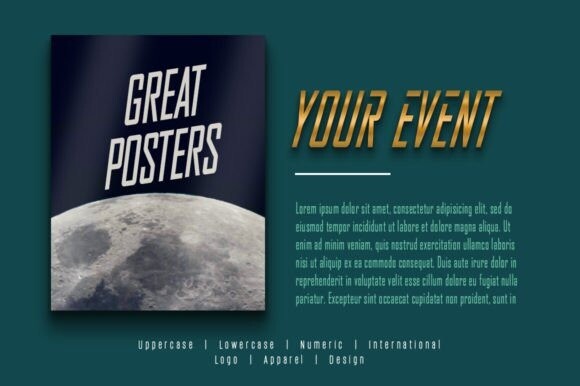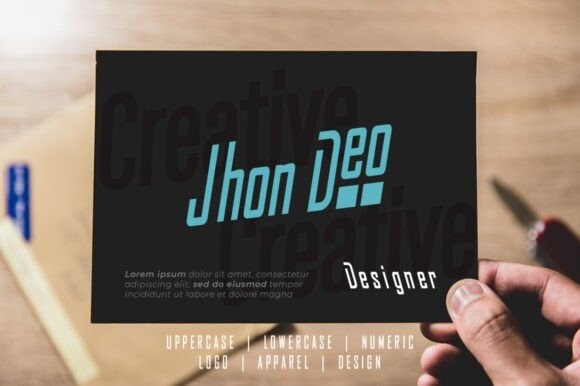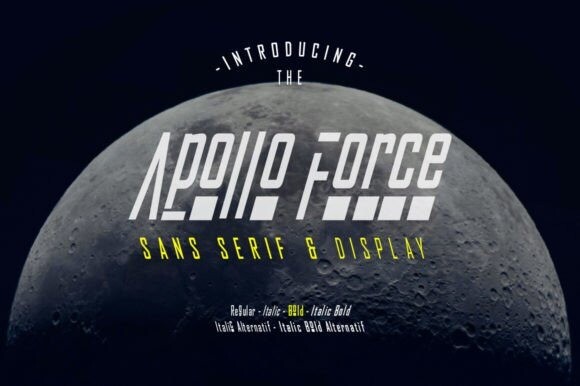
Apollo Force Font Family
Designer: yantodesign
Apollo Force Family Font – an irresistible choice for everything from concert posters and striking logos, to trendy clothing designs and beyond. Boasting not only uppercase and lowercase letters but numerical characters too, Apollo Force Font breathes an alternative charm into your typography repertoire.